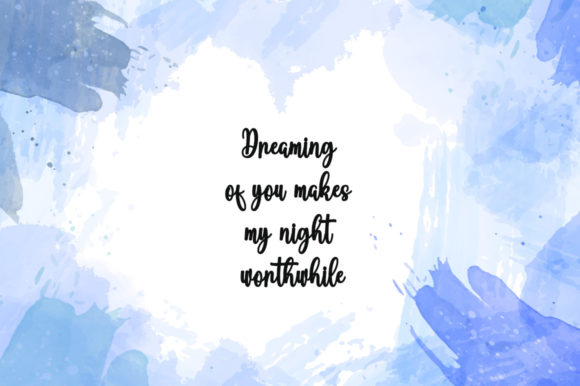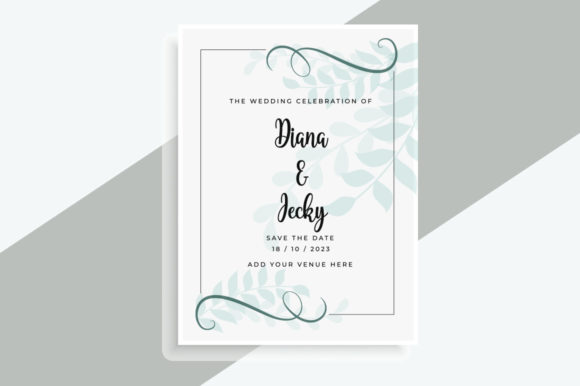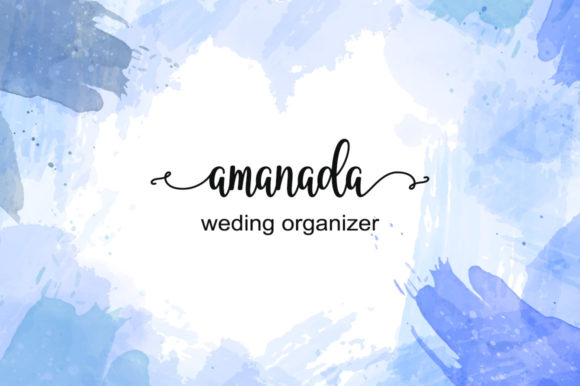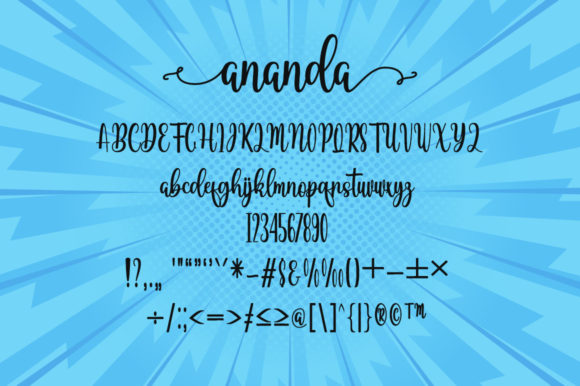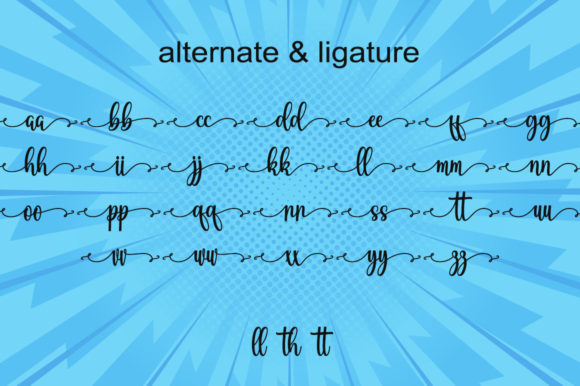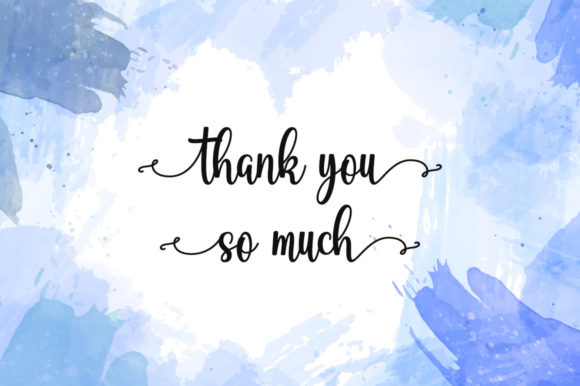
The Elegant Ananda Font: A Designer’s New Best Friend
I’ll never forget the project that led me to discover the Ananda font. I was working on a wedding invitation design, and my client had a very specific vision: elegant, modern, and with a touch of classic sophistication. As I scrolled through font after font, nothing seemed quite right – until I stumbled upon Ananda. Its beautiful script letters and contemporary feel instantly captured the essence of what my client was looking for. In that moment, I knew I’d found a gem.
An Honest Review of Ananda Font
- ✨ Elegant and modern design that fits a wide range of projects
- 💫 Impeccable form inspired by timeless classic calligraphy
- 🎨 Highly versatile for various design applications, from wedding invitations to branding
While Ananda has won my heart, it’s not without its quirks. For instance, ⚠️ some users might find the font requires a bit of getting used to, especially when it comes to kerning. However, once you adjust, its beauty shines through. Another point to consider is 🤔 the potential need for manual adjustments in certain design applications to fully leverage its OpenType features.
The Backstory of Ananda Font
While the exact origins of Ananda might be shrouded in mystery, it’s clear that its design was inspired by a deep appreciation for classic calligraphy and a vision for modern elegance. Designers often draw from the past to create something new and innovative, and Ananda is no exception. Its creator aimed to capture the essence of timeless beauty while infusing it with a contemporary spirit, making it versatile for today’s designs.
Q: What makes Ananda font special?
A: Ananda’s unique blend of classic calligraphy inspiration with a modern, elegant design makes it special. Its PUA encoding also allows for easy access to a wide range of glyphs and swashes.